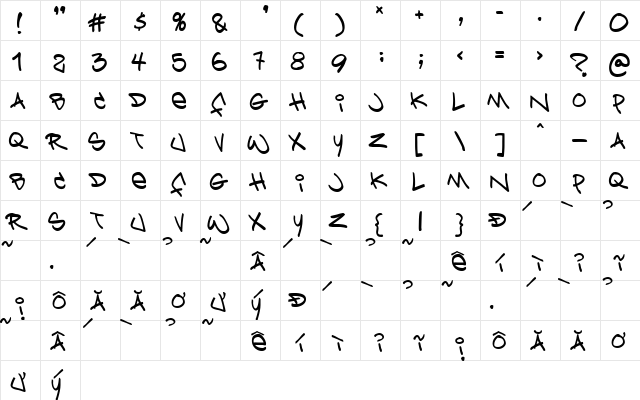
HL Freewrite Regular
Design Context for HL Freewrite Typeface
HL Freewrite is a composed and adaptable typeface that performs quietly and consistently across a wide range of design contexts.